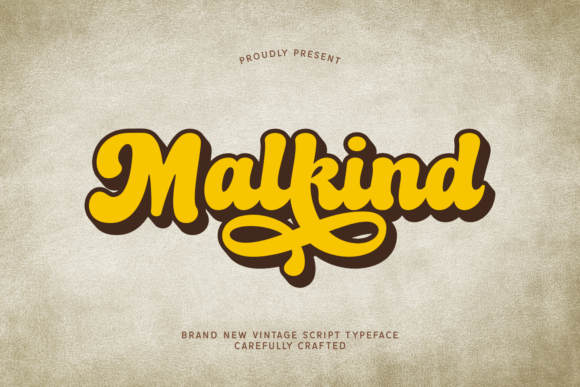
Malkind Font: A Bold Vintage Script Font for Timeless Designs
The Malkind font is a stunning example of a bold vintage script font that exudes a retro charm with its thick, smooth strokes and stylish swashes. This carefully crafted typeface is perfect for logos, packaging, headlines, and branding projects, offering a nostalgic yet modern appeal that can elevate any design. In this article, we’ll explore the features, benefits, and uses of the Malkind font, and why it’s an excellent choice for designers looking for a versatile and timeless typeface.
Key Features of Malkind Font
- Bold and Vintage: Malkind boasts thick, smooth strokes that give it a bold and vintage look, perfect for making a statement in any design.
- Retro Charm: The font’s classic swashes and elegant lines evoke a sense of nostalgia, adding a touch of retro charm to any project.
- Stylish Swashes: Malkind’s swashes are carefully designed to add a touch of elegance and sophistication to any design, making it perfect for logos, headlines, and packaging.
- Versatile: The font’s bold and playful style makes it a versatile choice for a wide range of design projects, from branding and advertising to packaging and editorial design.
Design Applications for Malkind Font
Malkind font is an excellent choice for a variety of design applications, including:
- Logo Design: The font’s bold and vintage style makes it perfect for creating memorable and timeless logos that stand out.
- Packaging Design: Malkind’s stylish swashes and elegant lines make it an excellent choice for packaging design, adding a touch of sophistication and elegance to any product.
- Headlines and Titles: The font’s bold and playful style makes it perfect for headlines and titles, adding a touch of drama and flair to any design.
- Branding and Advertising: Malkind font is an excellent choice for branding and advertising projects, offering a unique and memorable way to communicate a brand’s message.
Typography and Readability
Malkind font is not only visually stunning, but also highly readable and versatile. The font’s carefully crafted letterforms and spacing ensure that it remains clear and legible even at small sizes, making it perfect for a wide range of design applications.
The font’s typography is characterized by:
- Clear Letterforms: Malkind’s letterforms are carefully designed to be clear and legible, even at small sizes.
- Optimal Spacing: The font’s spacing is carefully adjusted to ensure that it remains readable and visually appealing.
- X-Height: Malkind’s x-height is carefully designed to provide optimal readability and legibility.
Comparison with Other Fonts
Malkind font stands out from other fonts in its category due to its unique combination of bold and vintage characteristics. Here’s a comparison with other popular fonts:
- Playfair Display: While Playfair Display is an elegant and refined font, Malkind offers a bolder and more playful take on vintage typography.
- Pacifico: Pacifico is a beautiful script font, but Malkind’s bold and smooth strokes make it more suitable for headlines and titles.
- Great Vibes: Great Vibes is a fun and playful script font, but Malkind’s elegant lines and swashes make it more versatile and sophisticated.
Tips and Tricks for Using Malkind Font
Here are some tips and tricks for getting the most out of Malkind font:
- Use it boldly: Malkind font is designed to make a statement, so don’t be afraid to use it boldly and prominently in your designs.
- Experiment with swashes: Malkind’s swashes are a key feature of the font, so experiment with different swash styles to add elegance and sophistication to your designs.
- Pair it wisely: Malkind font pairs well with clean and simple sans-serif fonts, such as Open Sans or Lato.
- Use it for headlines: Malkind font is perfect for headlines and titles, adding a touch of drama and flair to any design.
Malkind font is a bold and vintage script font that offers a unique combination of retro charm and modern appeal. Its thick, smooth strokes and stylish swashes make it perfect for logos, packaging, headlines, and branding projects. With its versatility, readability, and timeless style, Malkind font is an excellent choice for designers looking for a typeface that can elevate their designs and leave a lasting impression.